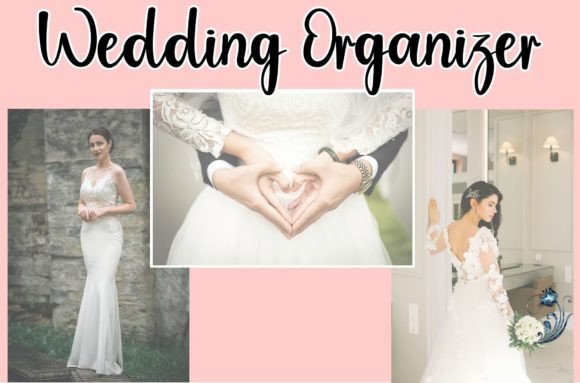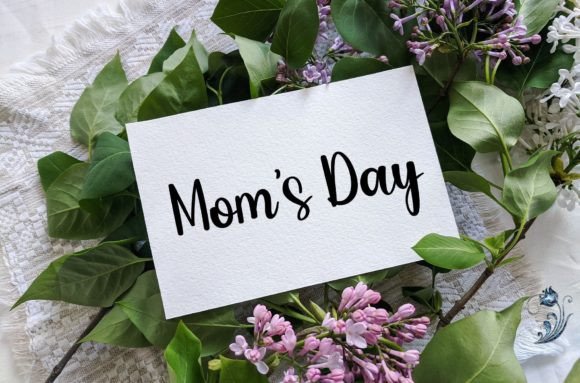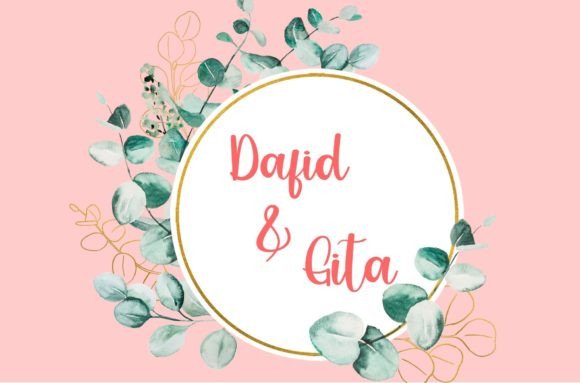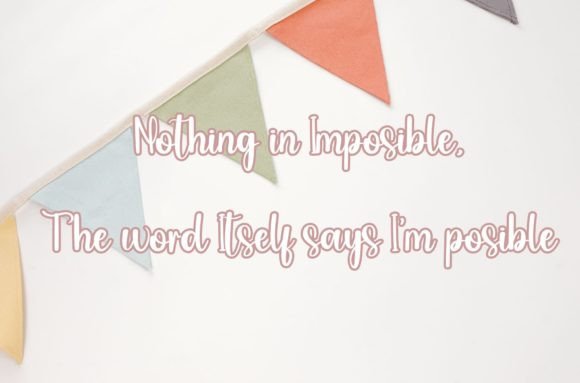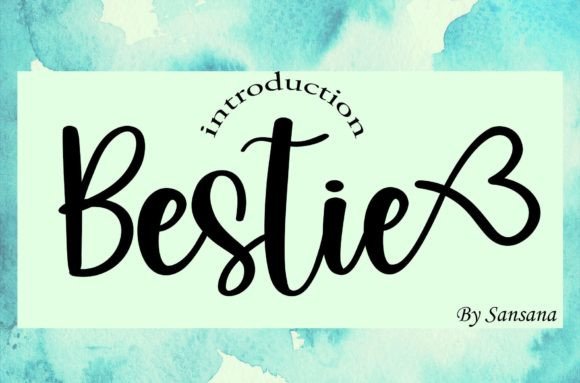
Introducing Bestie Font: The Sweet and Romantic Script Font for Your Creative Projects
Are you a designer, crafter, or DIY enthusiast looking for a beautiful and elegant script font to add a touch of sweetness and romance to your projects? Look no further than Bestie Font! This gorgeous font features stunning curves in each letter, making it perfect for a wide range of creative applications.
What Makes Bestie Font So Special?
Bestie Font is a sweet, romantic, and beautiful script font that is sure to capture your heart. Its elegant curves and flowing lines make it perfect for creating beautiful and eye-catching designs. Whether you’re working on a wedding invitation, a DIY craft project, or a professional design, Bestie Font is the perfect choice.
One of the standout features of Bestie Font is its versatility. It can be used for a wide range of projects, from formal and elegant designs to more casual and playful ones. The font is also highly legible, making it perfect for use in both digital and print applications.
Why Choose Bestie Font for Your Projects?
There are many reasons why Bestie Font is the perfect choice for your creative projects. Here are just a few:
- Beautiful Curves: Bestie Font features stunning curves in each letter, making it perfect for creating beautiful and eye-catching designs.
- Elegant and Romantic: The font has an elegant and romantic feel that’s perfect for wedding invitations, anniversary cards, and other special occasions.
- Highly Legible: Bestie Font is highly legible, making it perfect for use in both digital and print applications.
- Versatile: The font can be used for a wide range of projects, from formal and elegant designs to more casual and playful ones.
How to Use Bestie Font in Your Projects
Using Bestie Font in your projects is easy! Here are a few tips to get you started:
- Pair it with Other Fonts: Bestie Font looks great when paired with other fonts. Try pairing it with a bold sans-serif font for a beautiful contrast.
- Use it for Headings: Bestie Font is perfect for use in headings and titles. Its elegant curves and flowing lines make it perfect for grabbing attention.
- Add it to Your Digital Designs: Bestie Font can be used in a wide range of digital designs, from social media graphics to website headers.
- Use it for Print Projects: The font is also perfect for use in print projects, from wedding invitations to business cards.
Bestie Font is a beautiful and elegant script font that’s perfect for designers, crafters, and DIY enthusiasts. Its stunning curves and flowing lines make it perfect for creating beautiful and eye-catching designs. Whether you’re working on a wedding invitation, a DIY craft project, or a professional design, Bestie Font is the perfect choice. So why wait? Download Bestie Font today and start creating beautiful and romantic designs!